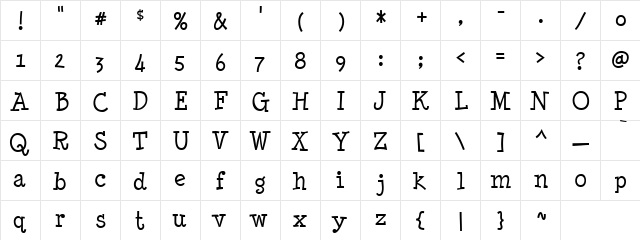
Navathle Lity Regular
Design Context for Navathle Lity Typeface
Navathle Lity is a composed and adaptable typeface that performs quietly and consistently across a wide range of design contexts.